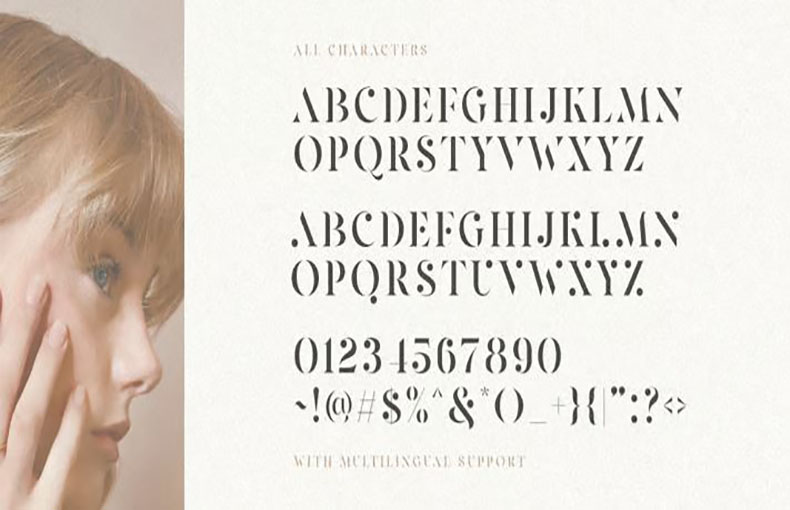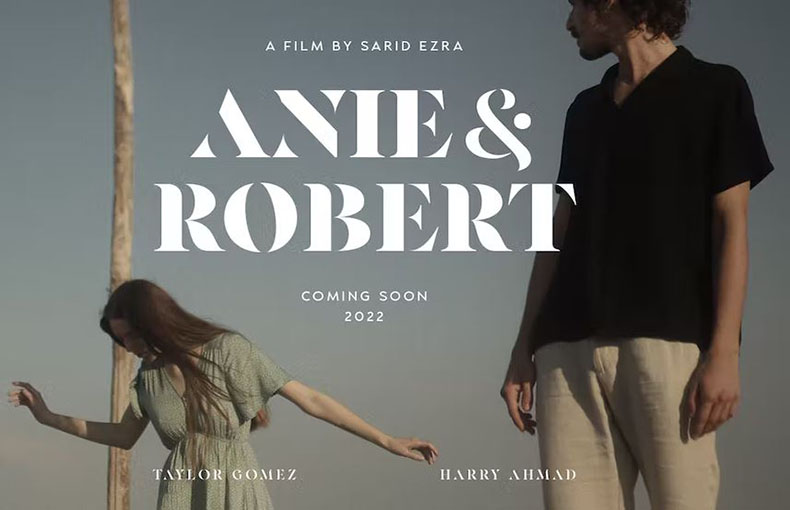
Pearlone Font is a stunning stencil serif typeface that boasts a modern and stylish design. The author of this typeface is Sarid Ezra, who also published it.
This stylish typeface adds a sense of elegance to any design project with its distinctive touch of dots in some characters that are inspired by the beautiful pearl.
The font is ideal for a variety of creative tasks because it is available in regular and bold forms that beautifully contrast one another.
It is versatile and sure to attract the attention of anybody who sees it, from branding and logos to invites and headlines.
The readability of the Pearlone typeface is one of its most notable qualities. It is an excellent option for both print and digital graphics because it is still simple to read despite its beautiful and sophisticated design.
For those wishing to add an edge of elegance to their creative endeavors, it is a stylish and modern option.
Usage Of Pearlone Font
It is an excellent choice for a number of design purposes because of its distinctive design, versatility, and legibility, and it will last for a very long time.
Additionally, this typeface is a perfect option for titles, headlines, and other kid-friendly features in product design, adventure, education, social media posters, flyers, banners, headers, titles, game cards, and birthday cards.
What is Pearlone Font?
A touch of luxury can be added to your text by using the sophisticated and beautiful Pearlone Font, which was created for a variety of creative tasks.
Where can I use Pearlone Font?
Wherever a beautiful image is desired, you can use the Pearlone Font to develop logos, invitations, posters, websites, and more.